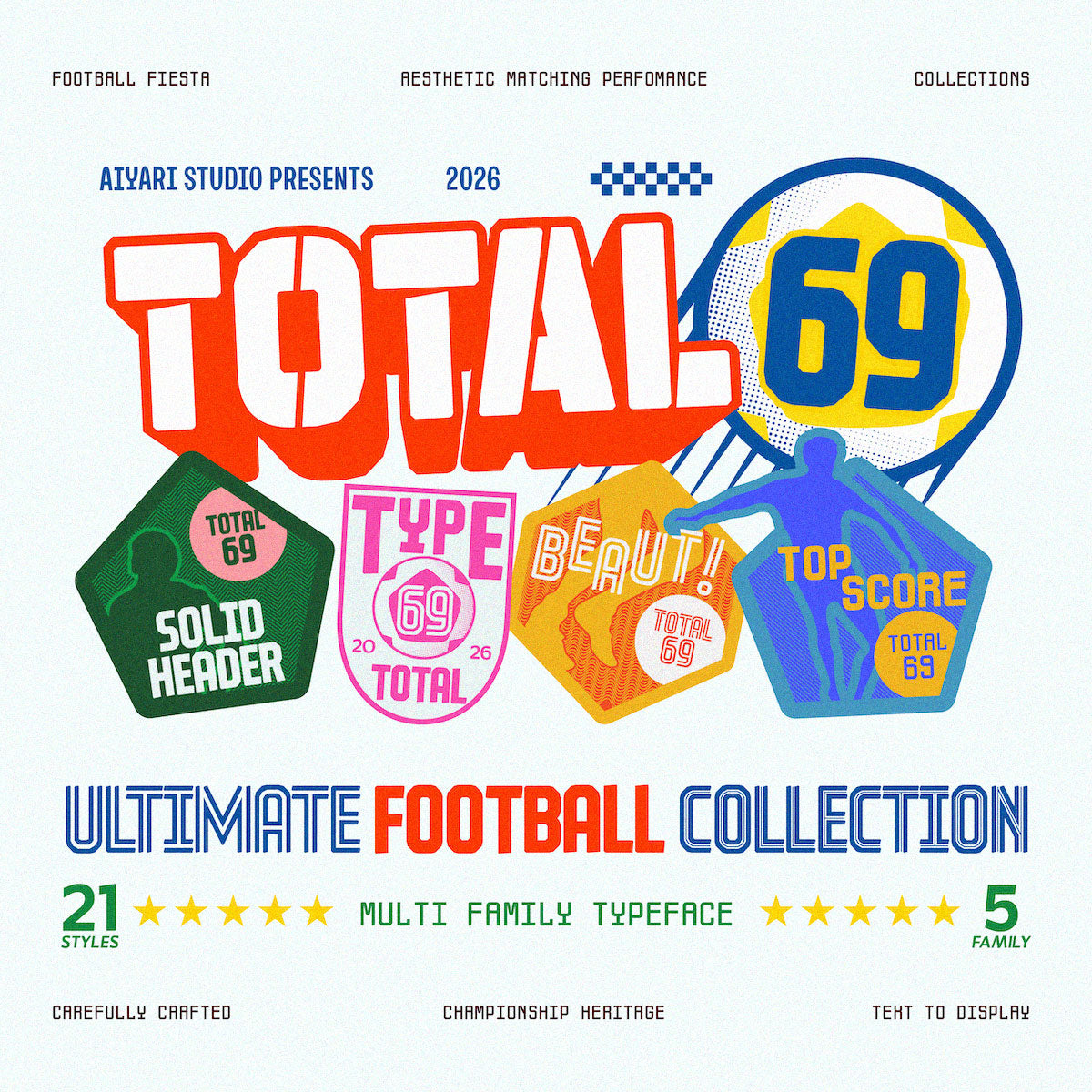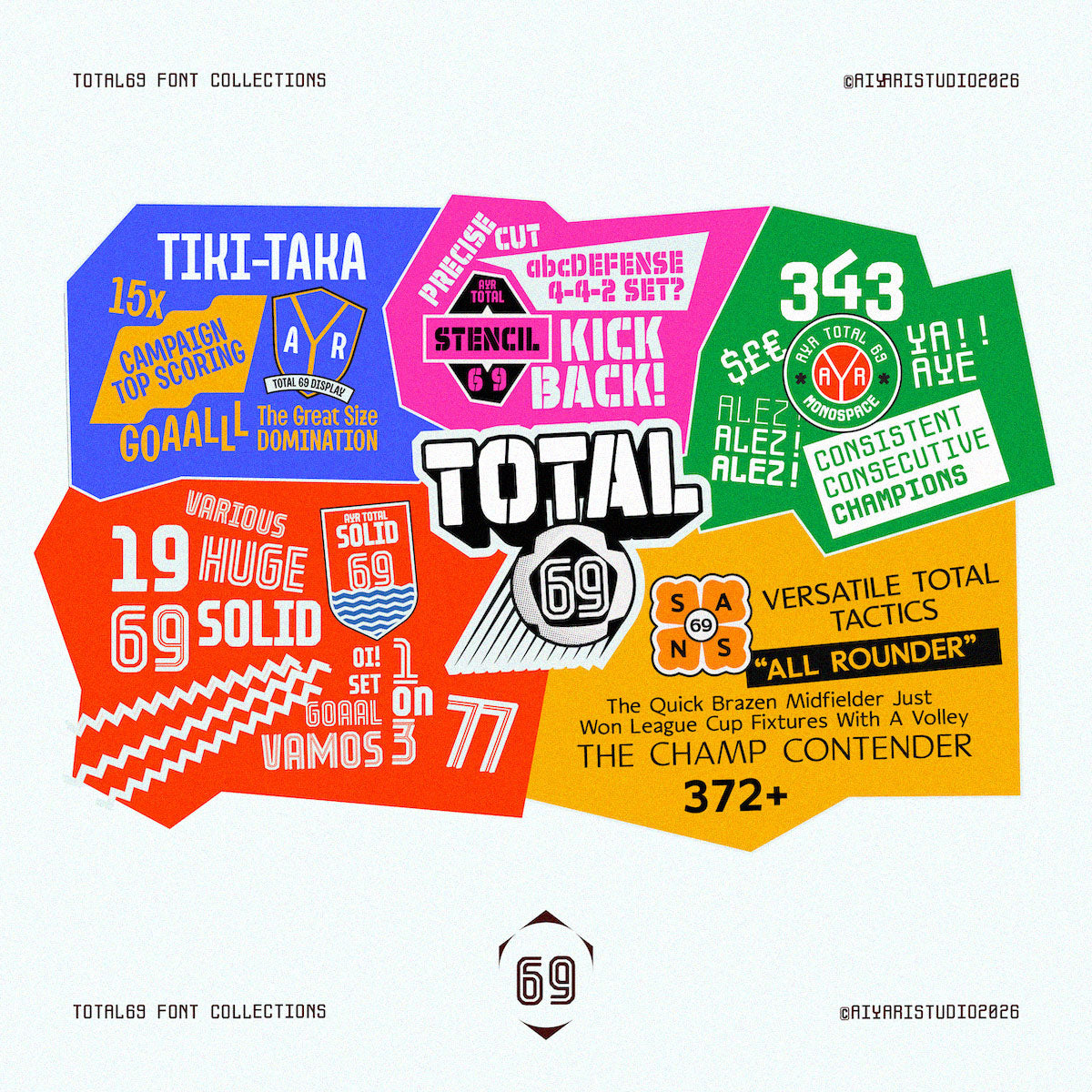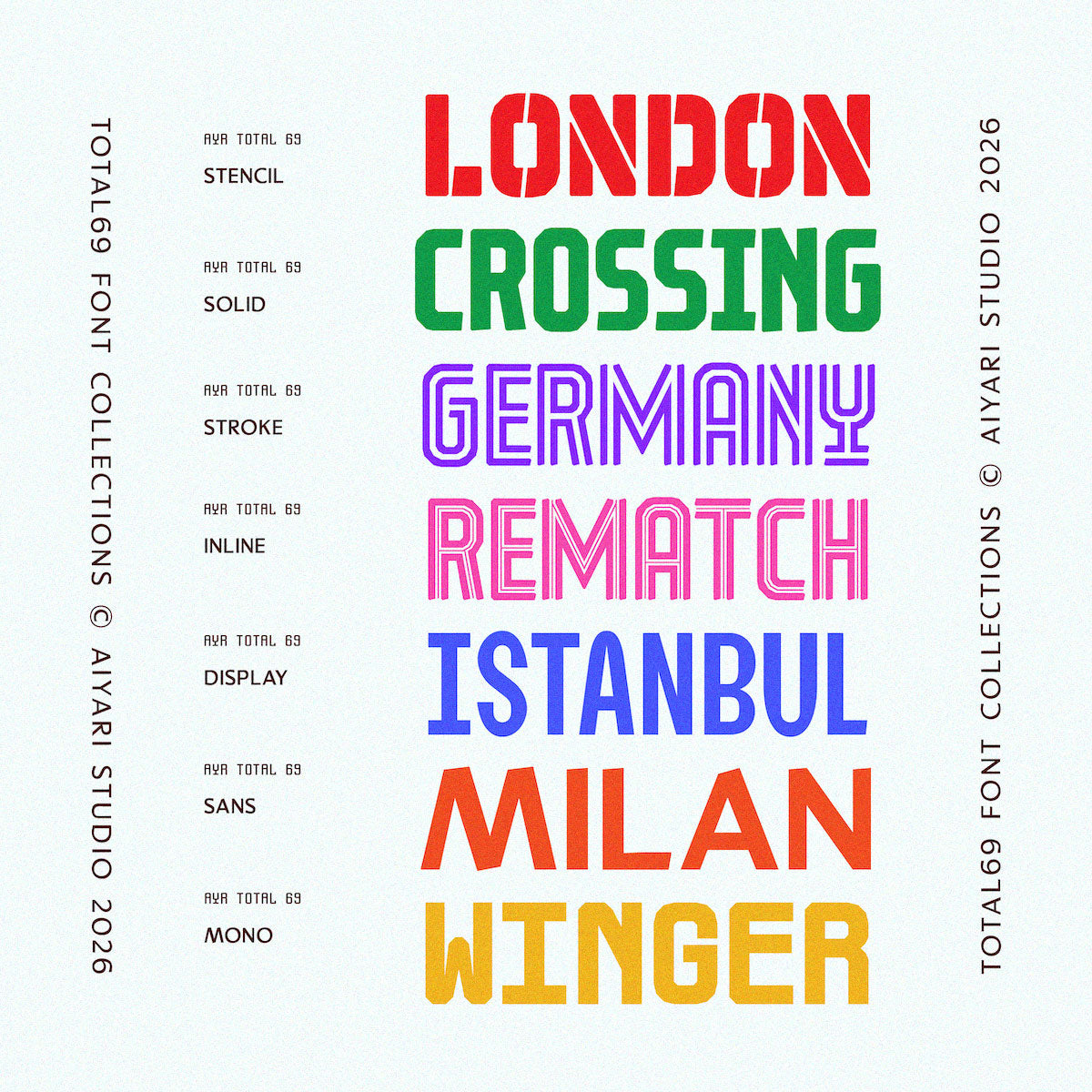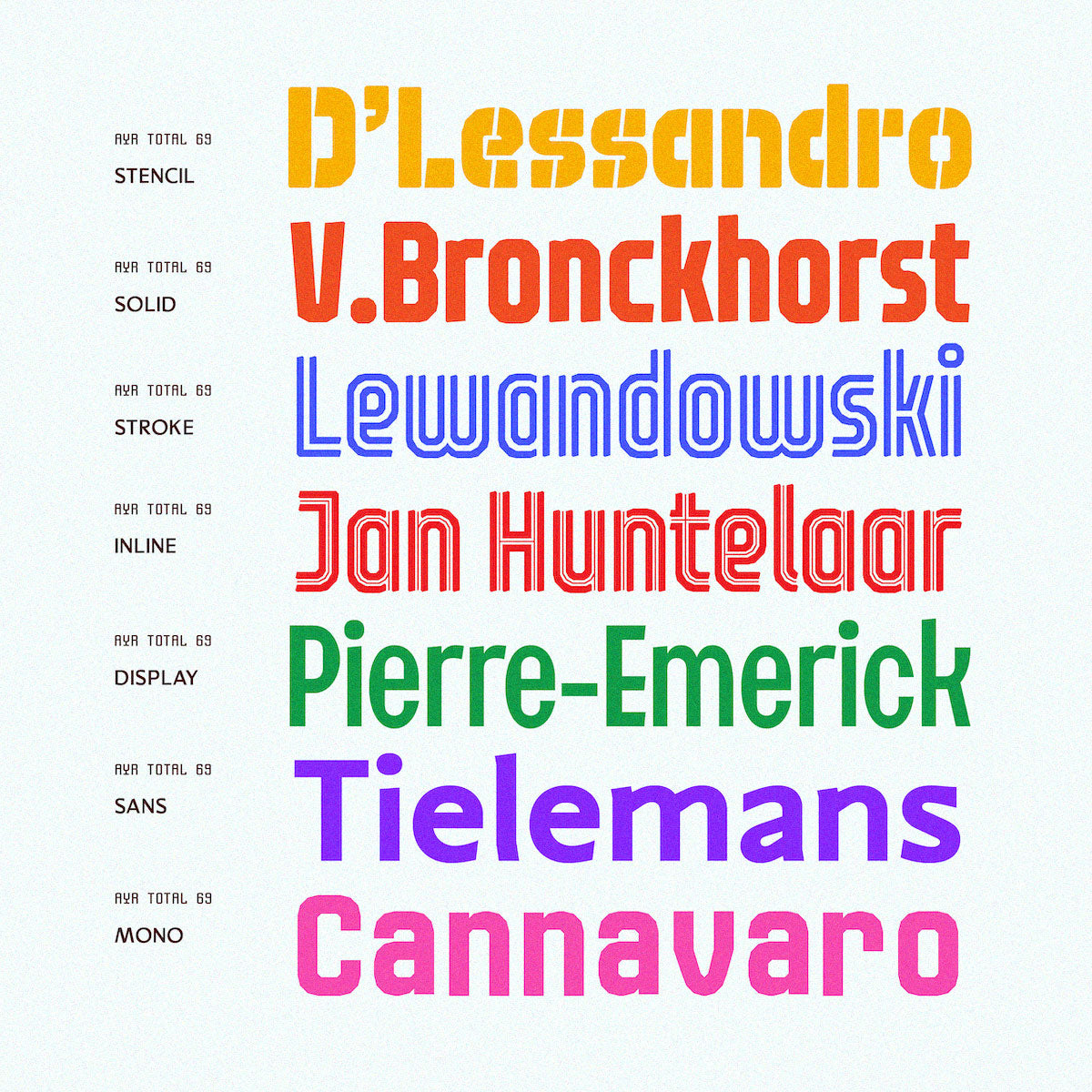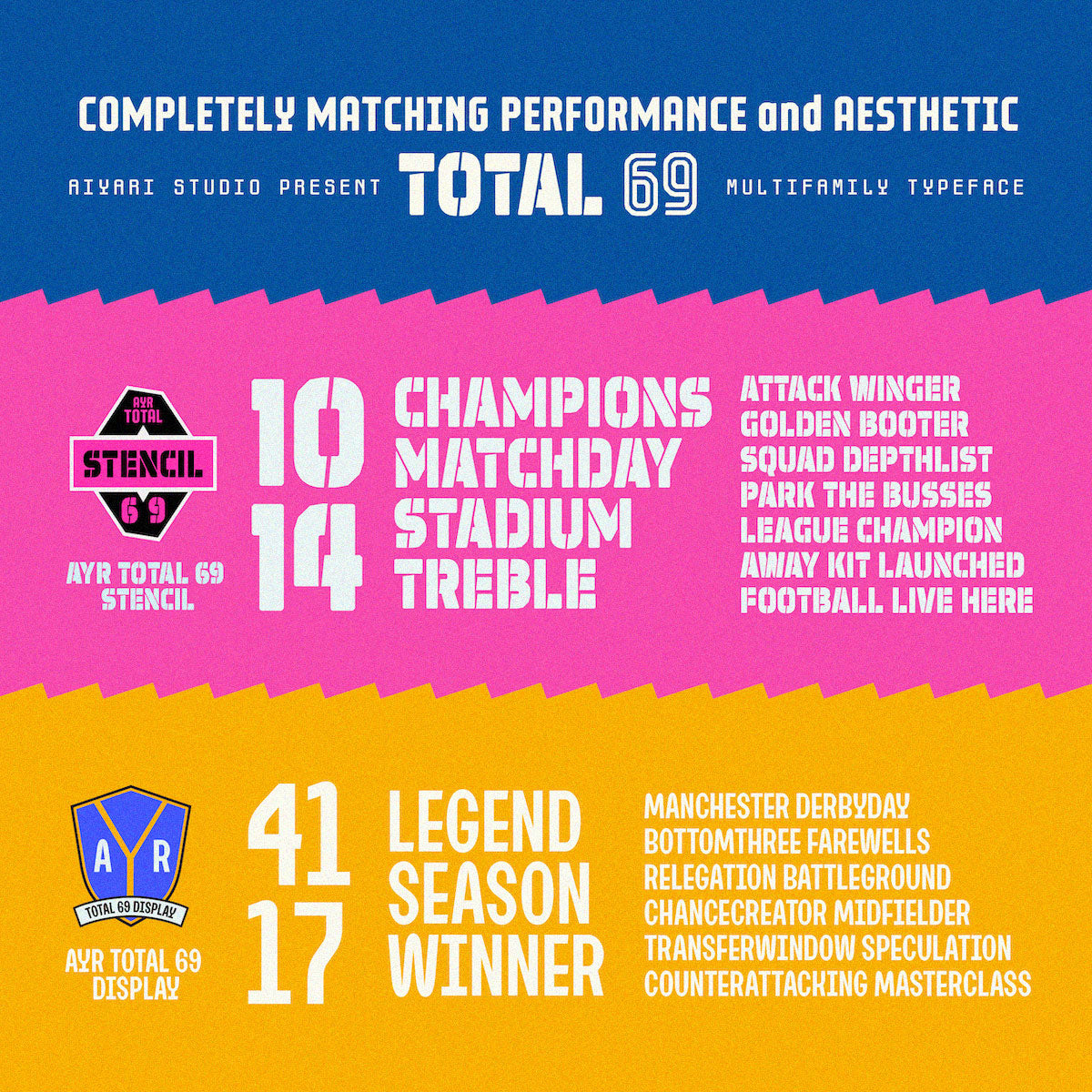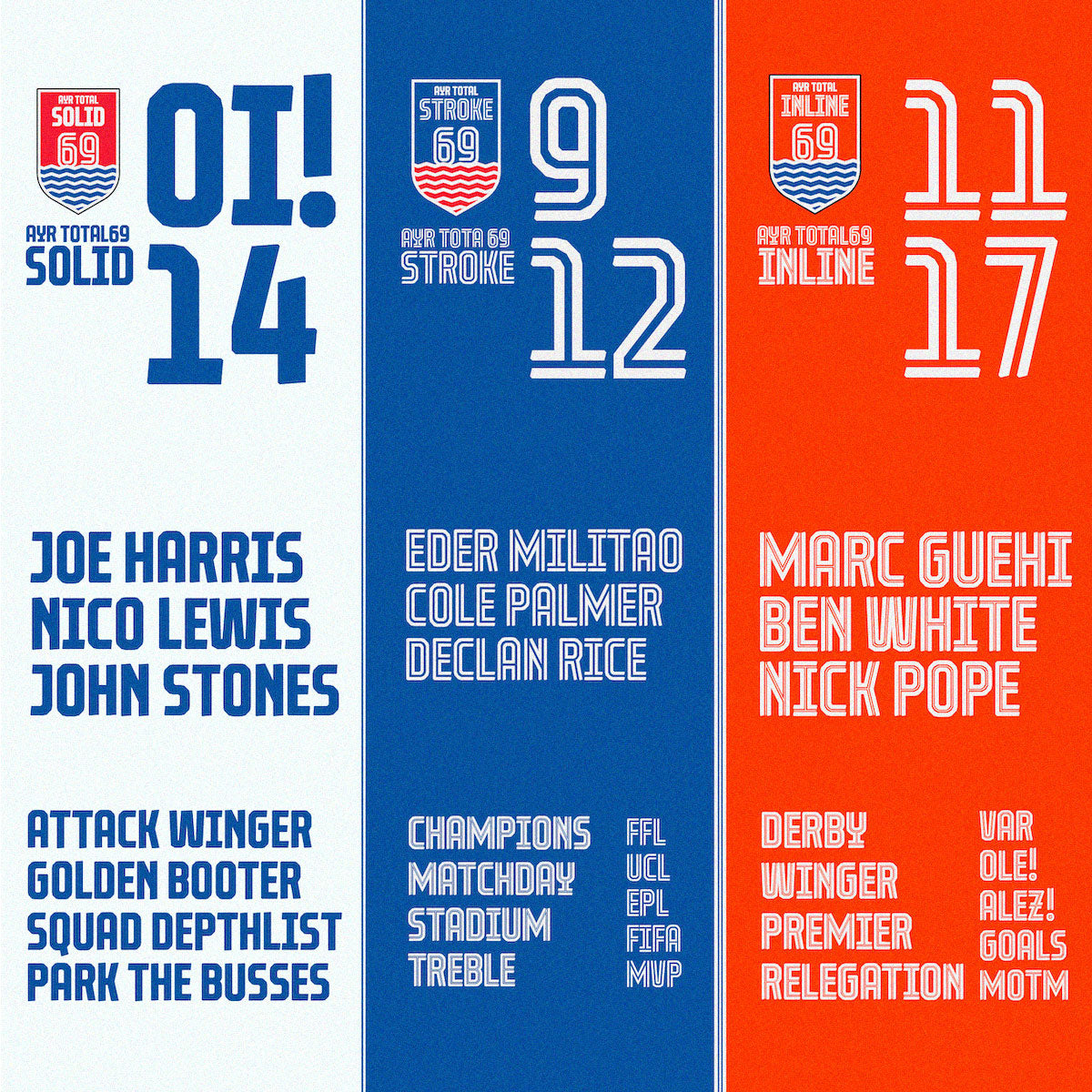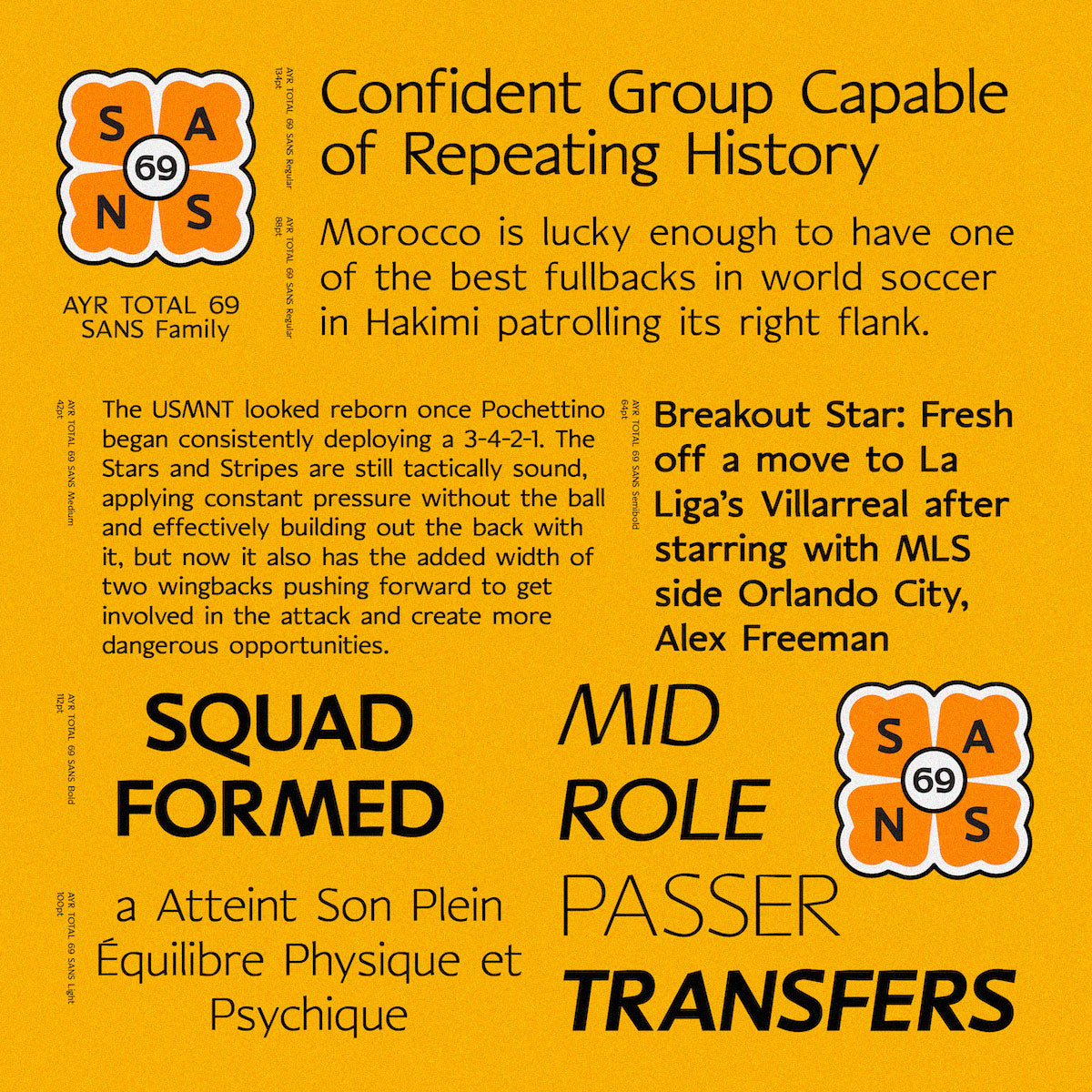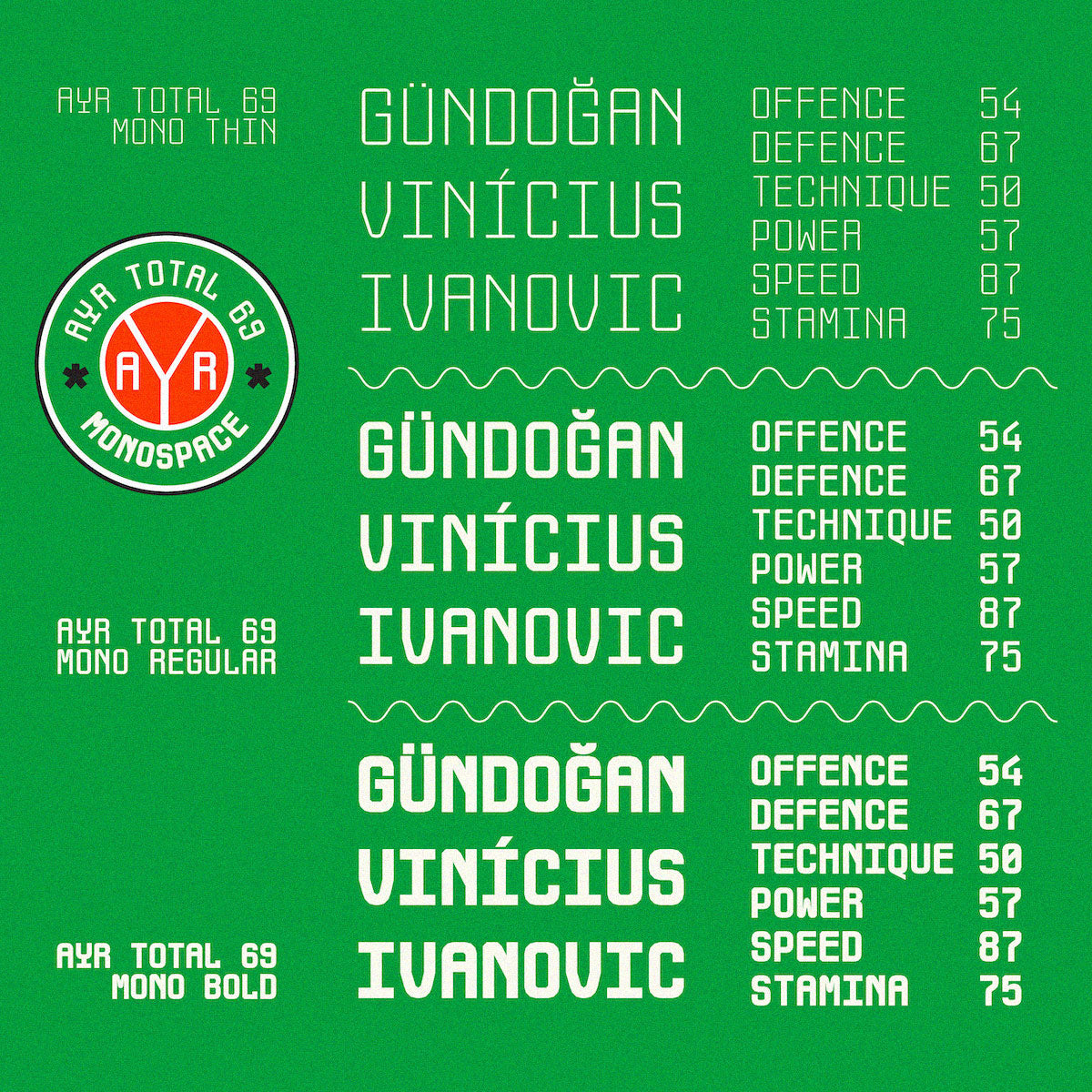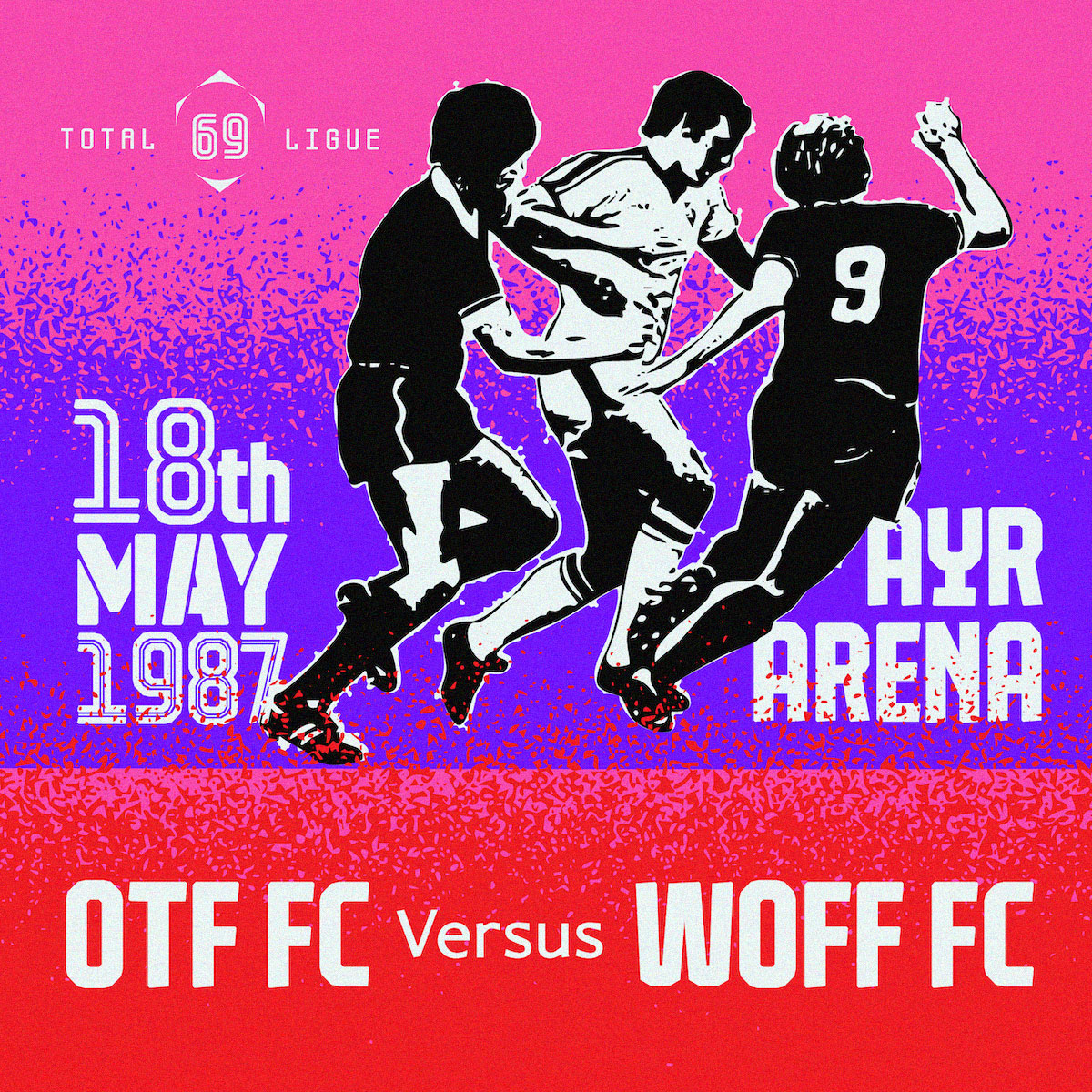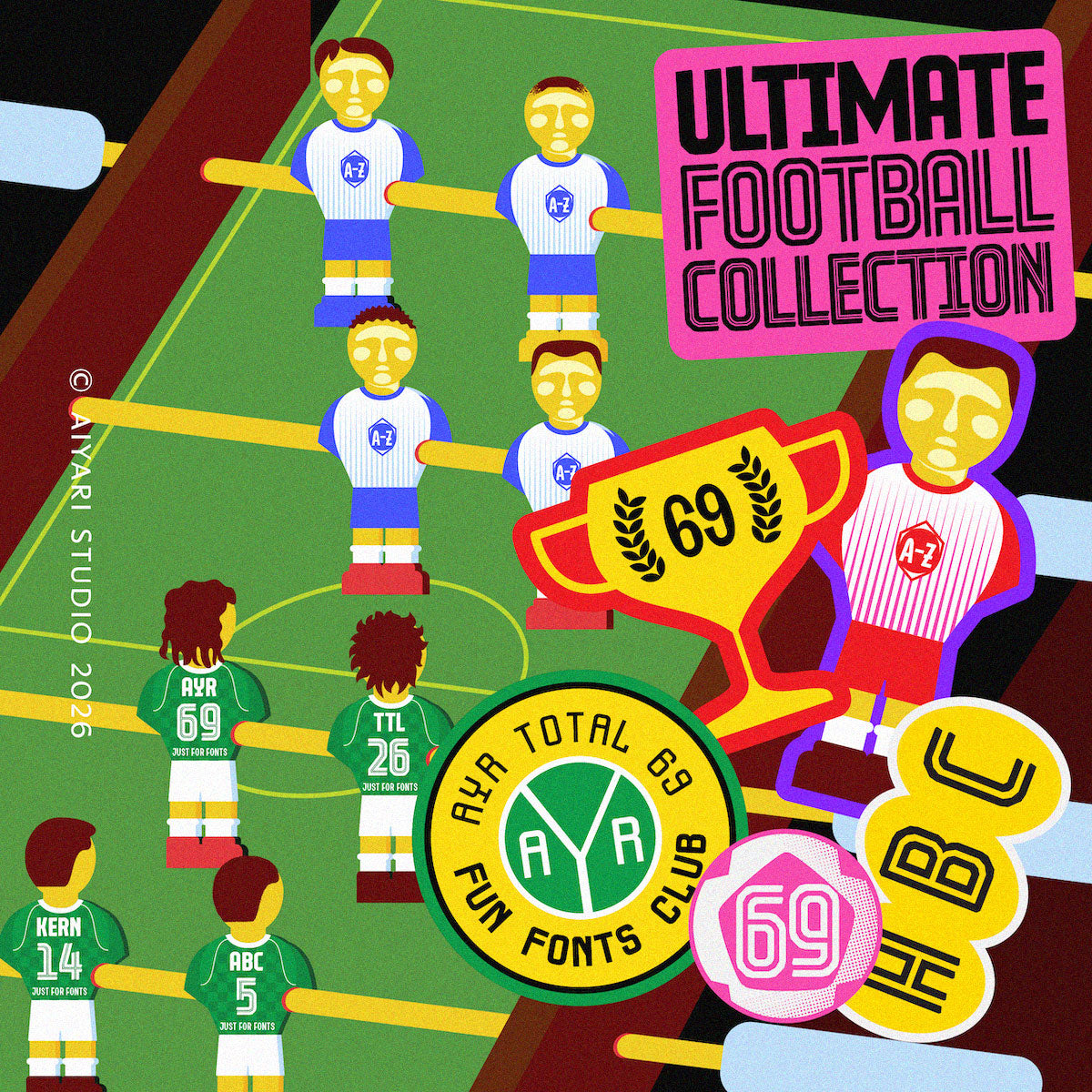
Total 69 - Retro Sports Font Collection
Ayr Total 69 is a full-stadium typographic menu serving up the golden era of football  vintage matchday programs, legendary kit numbers, ticket stubs, and every well-worn detail of the beautiful game. It's a modern-retro spread of 21 fonts across five matching families, crafted to feel nostalgic and bold in equal measure.
AYR Total 69 brings a full squad of flavors to your designs. Leading the line is a sharp, cut-to-the-bone Stencil and a commanding Display, perfectly paired with a triple serving Solid — Regular, Inline, and Stroke built for kit numbers and club crests. Plating it all together is a stat-ready Mono in four weights and a hearty humanist Sans in twelve styles with italics throughout, the workhorse that carries everything from clean body copy to multilingual matchday text.
Total 69 is the ultimate indulgence for projects craving that unmistakable taste of vintage football. It's your go to ingredient for sports branding, retro activewear, editorial matchday programs, player rating cards, and any identity that wants to live and breathe the beautiful game.
Total 69 is a retro sports font collection featuring 21 fonts across five families: Stencil, Display, Solid (Regular, Inline, Stroke), Mono (four weights), and Sans (twelve styles with italics).